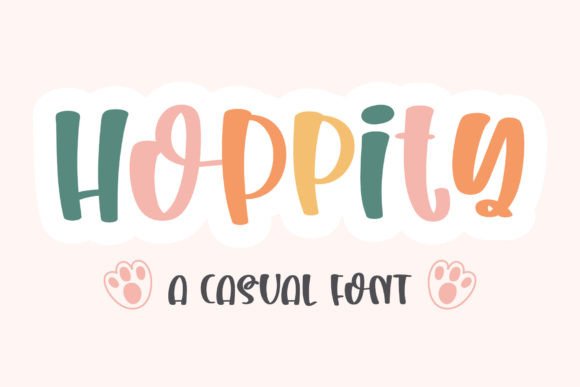
Introducing Hoppity Font, the playful and captivating display font that will add a touch of whimsy to all your creative endeavors. Crafted with intricate details and a charming personality, Hoppity is perfect for enchanting wedding invitations, delightful stationary art, and captivating social media posts. Its versatility knows no bounds, making it an ideal choice for a wide range of projects.
Indulge in the joy of crafting heartfelt messages and captivating designs with Hoppity Font. Its endearing style will ignite your imagination and transform your words into works of art. Experience the magic of Hoppity today and let its sweet and playful spirit brighten your designs.